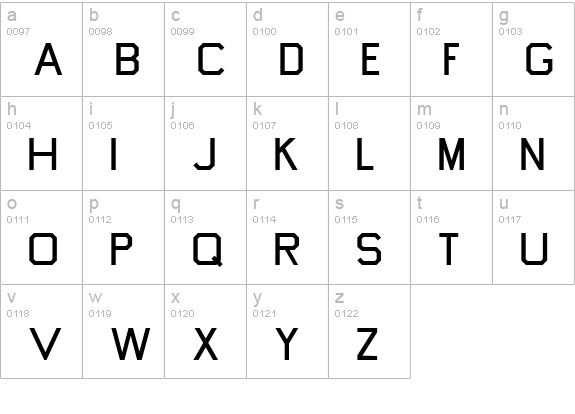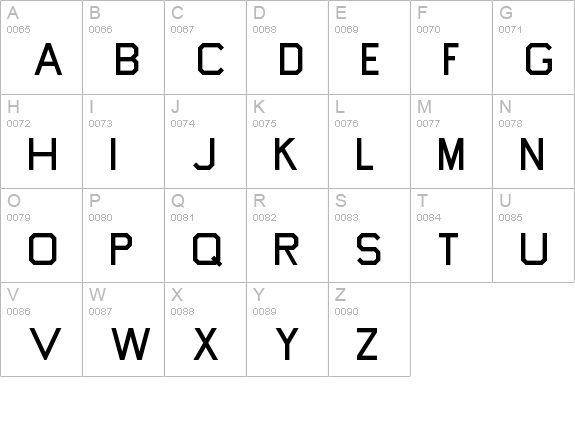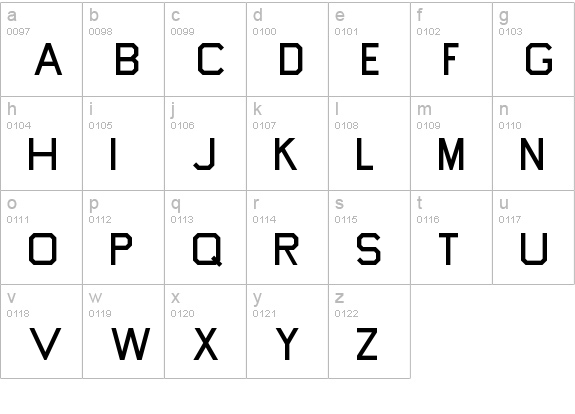
Tapeworm Font Details
Introducing Tapeworm font, a captivating typeface that will leave you mesmerized by its unique and innovative design. This font is the perfect balance between elegance and creativity, making it a versatile choice for a wide range of design projects. Tapeworm font features intricate letterforms that have been meticulously crafted to ensure maximum legibility and visual impact. Its smooth curves and clean lines give it a modern and sophisticated look, while its slightly condensed proportions make it ideal for both headline and body text. But what truly sets Tapeworm font apart is its ability to effortlessly capture attention and evoke emotions. Each character has been expertly tailored to create a harmonious flow that draws the reader in, making it a powerful tool for conveying messages effectively. And the best part? Tapeworm font is free! That's right, this exceptional font is freely available to download at FontsMarket.com. Now you can enhance your design projects without breaking the bank, as Tapeworm font offers both style and affordability. So whether you're working on a branding project, a poster design, or a website, Tapeworm font is the perfect choice to elevate your work to new heights. Its versatility and elegance make it suitable for a wide range of design styles, ensuring that your creations will always stand out from the crowd. Don't miss out on the opportunity to enhance your design arsenal with Tapeworm font. Download it for free at FontsMarket.com and unlock a world of endless possibilities. Elevate your designs, captivate your audience, and make a lasting impression with Tapeworm font.